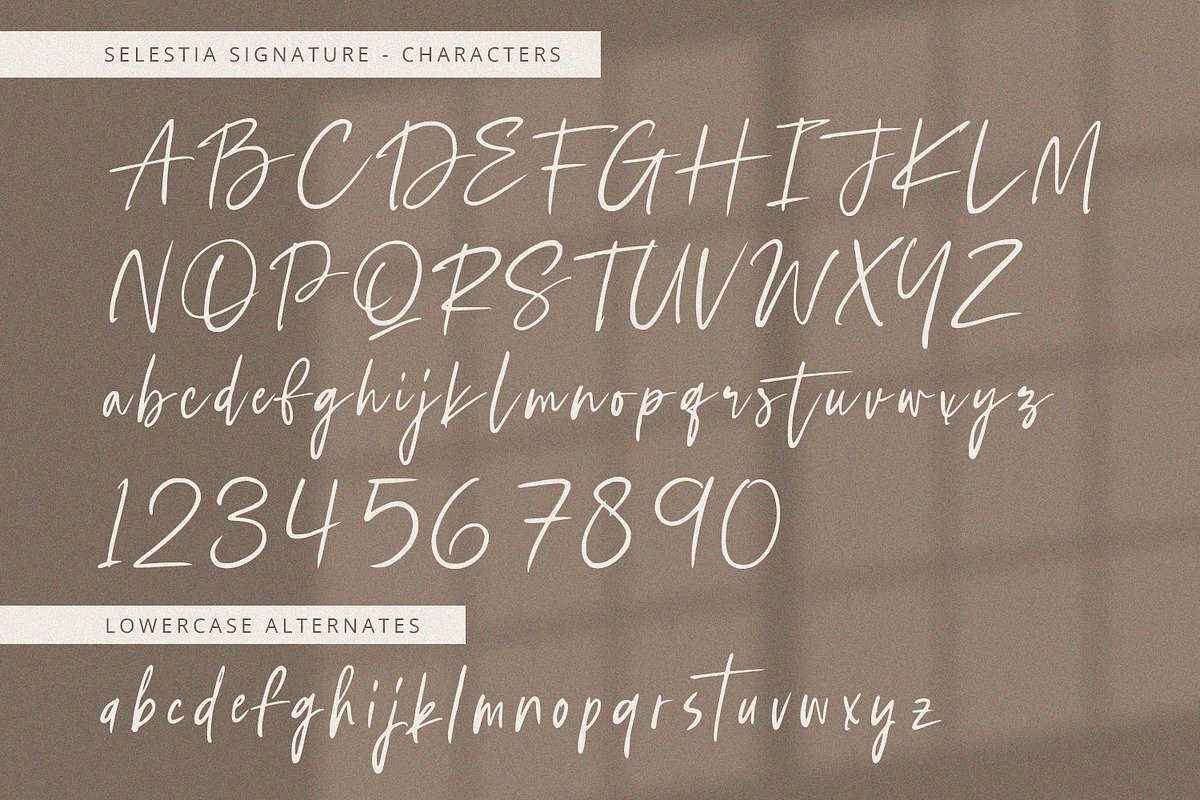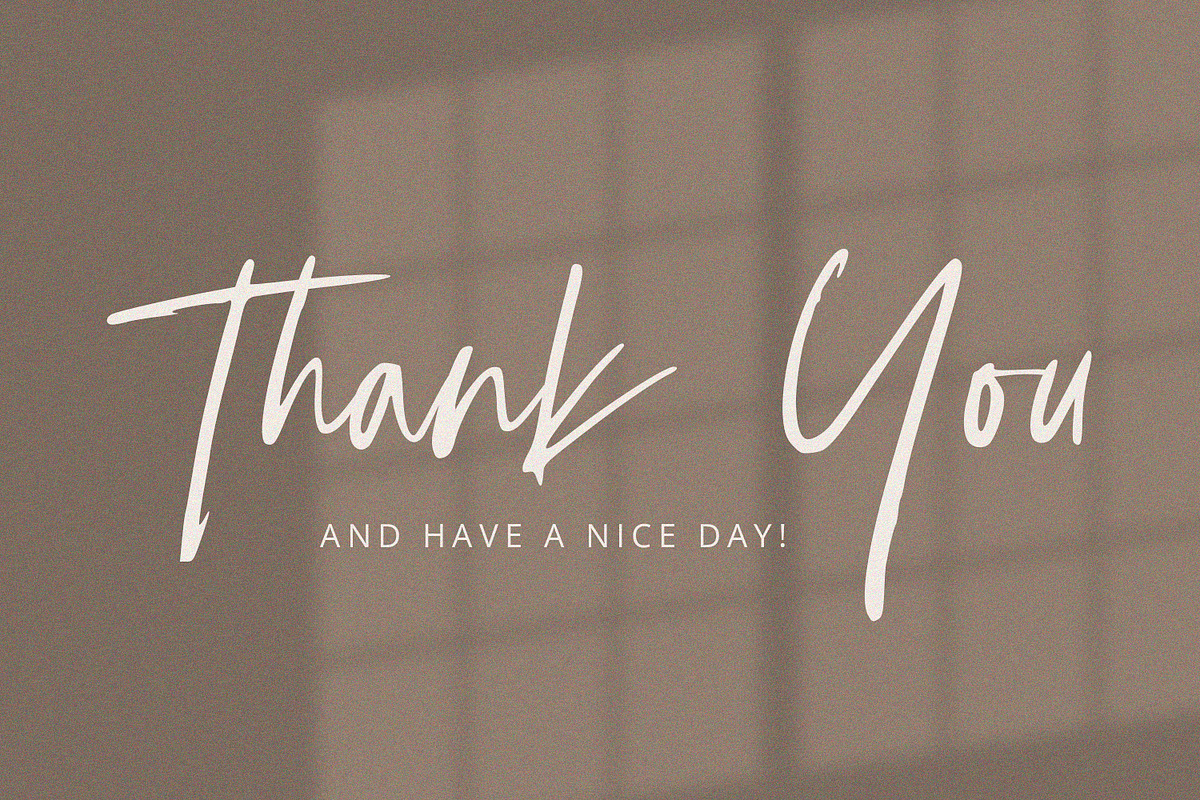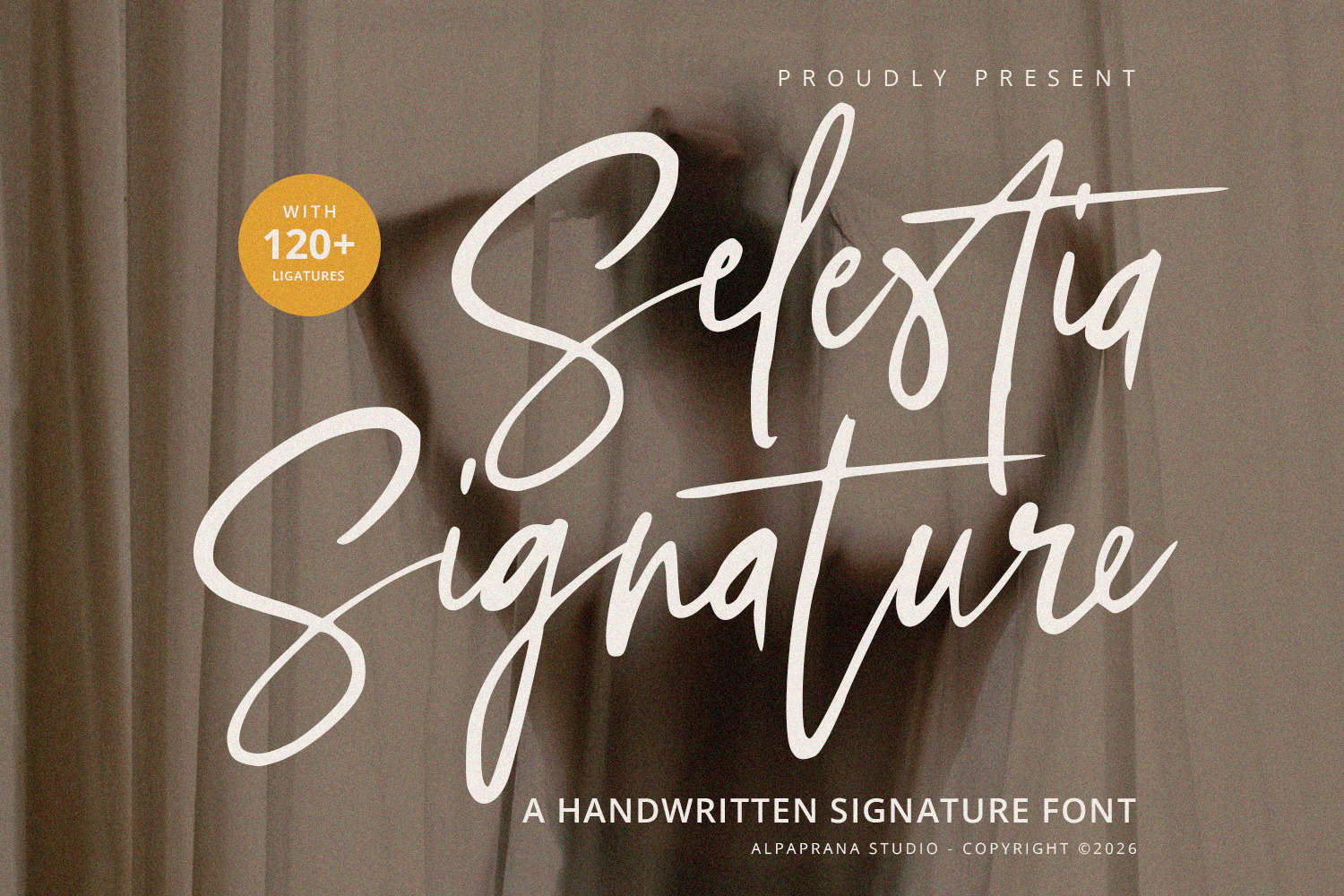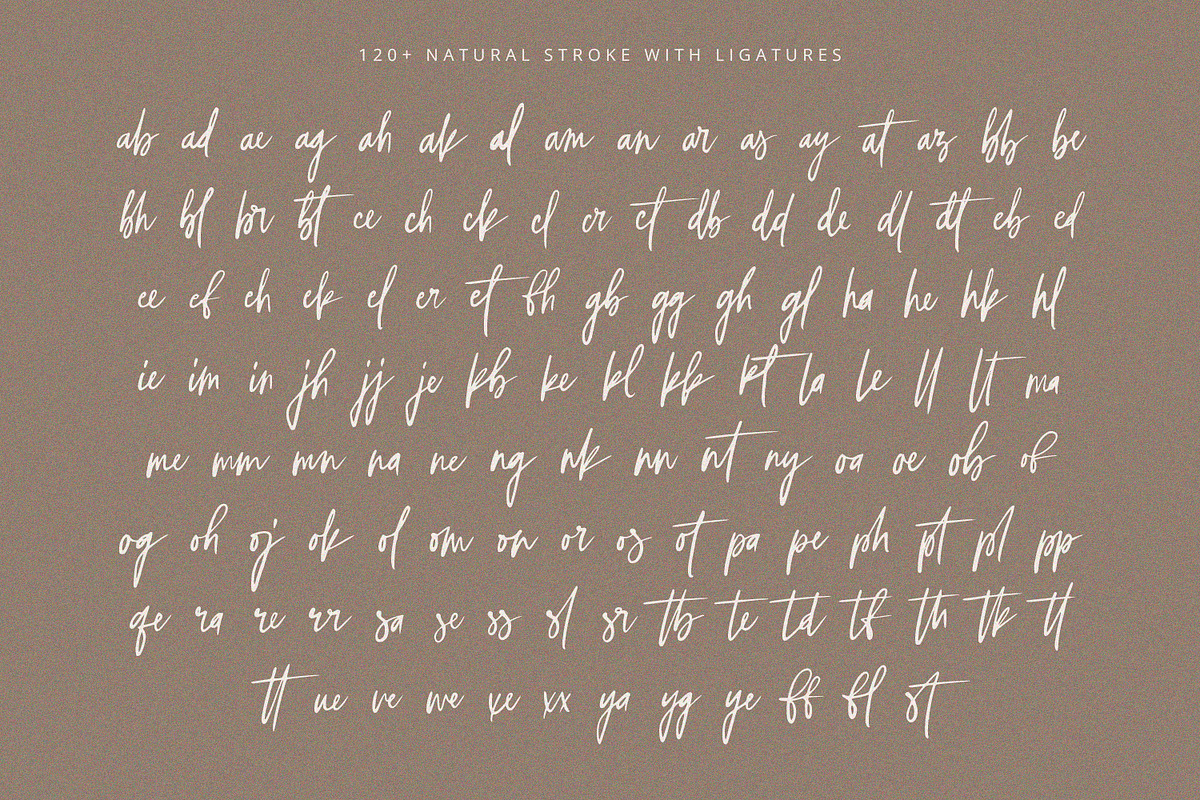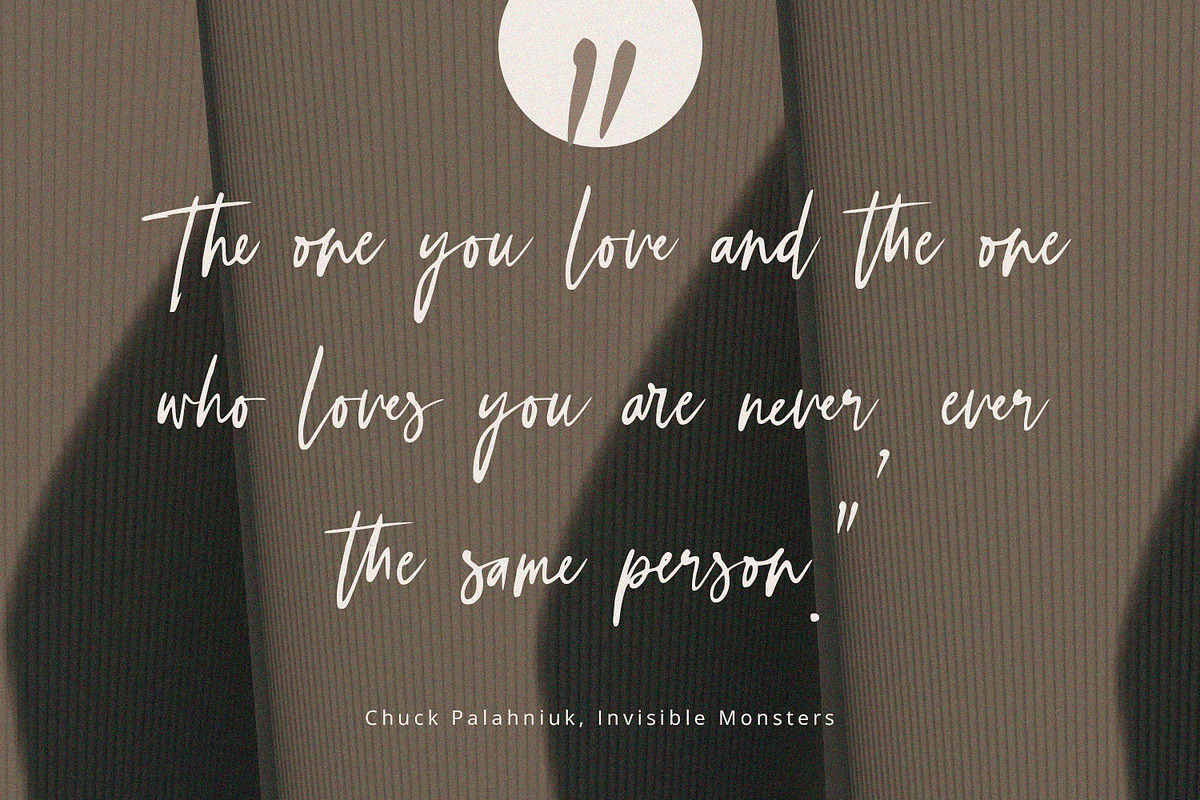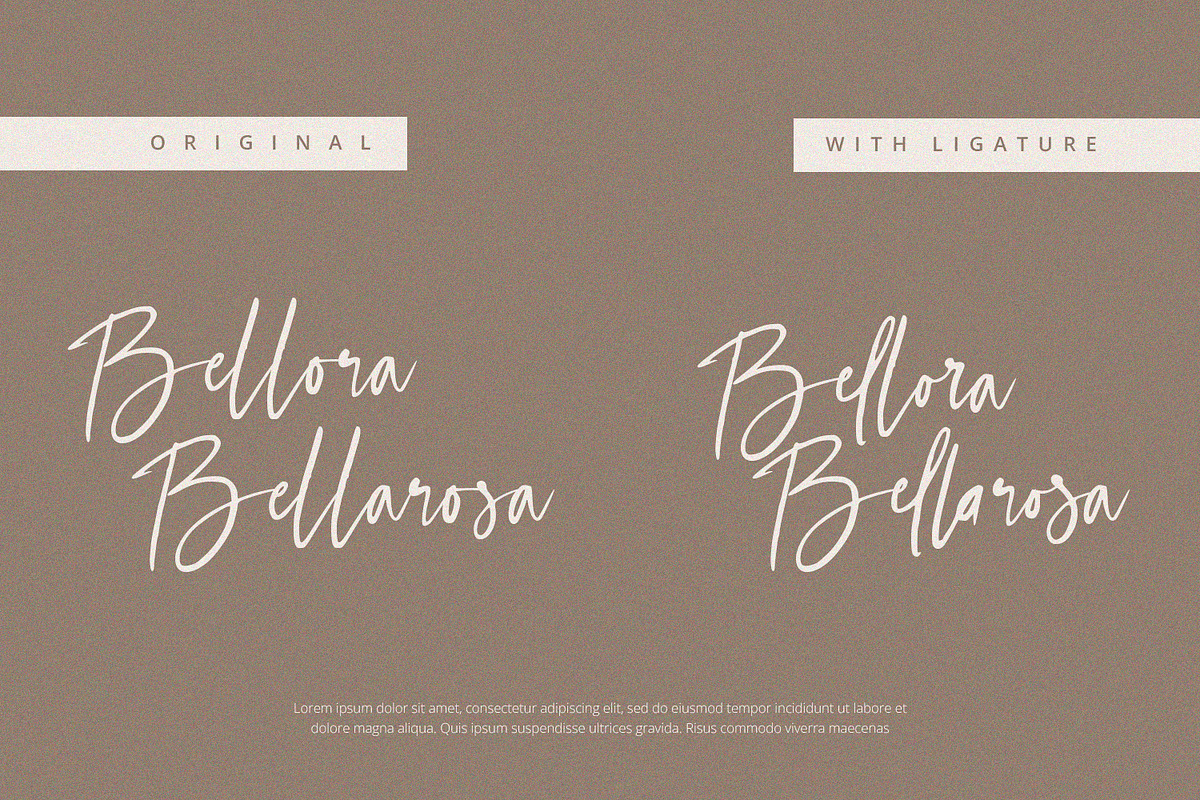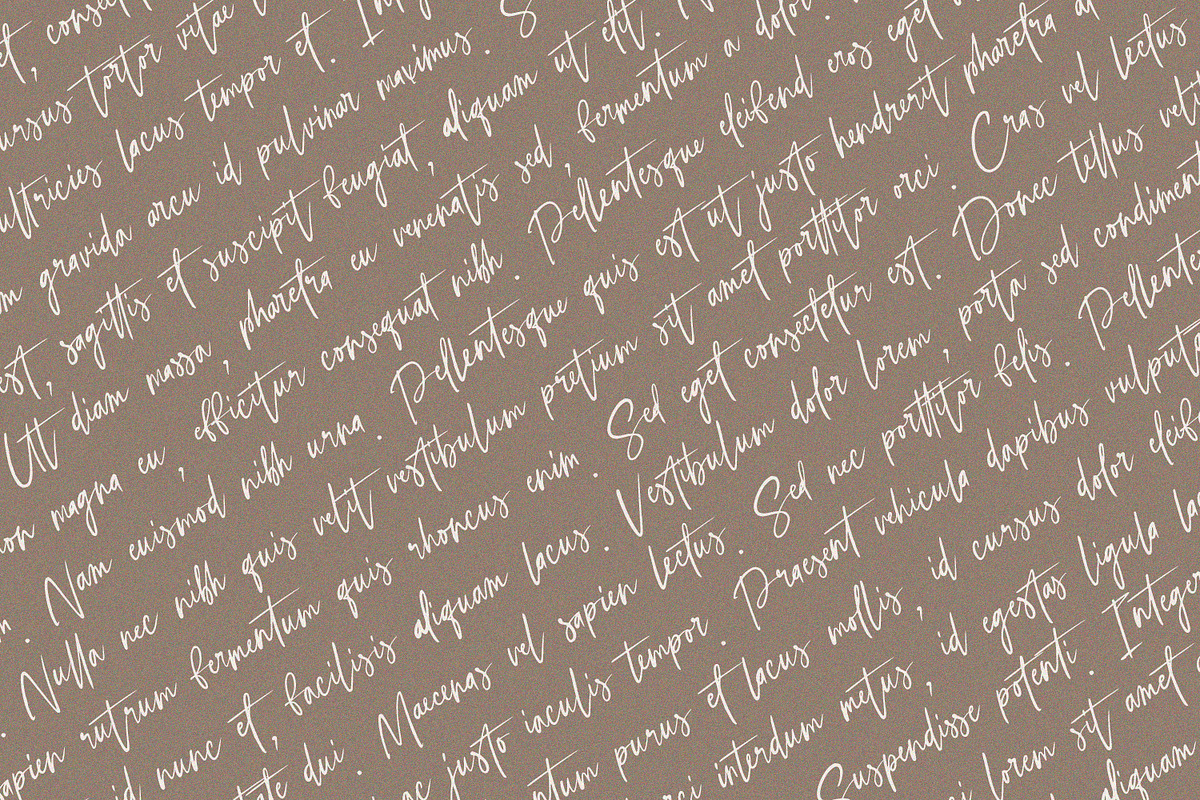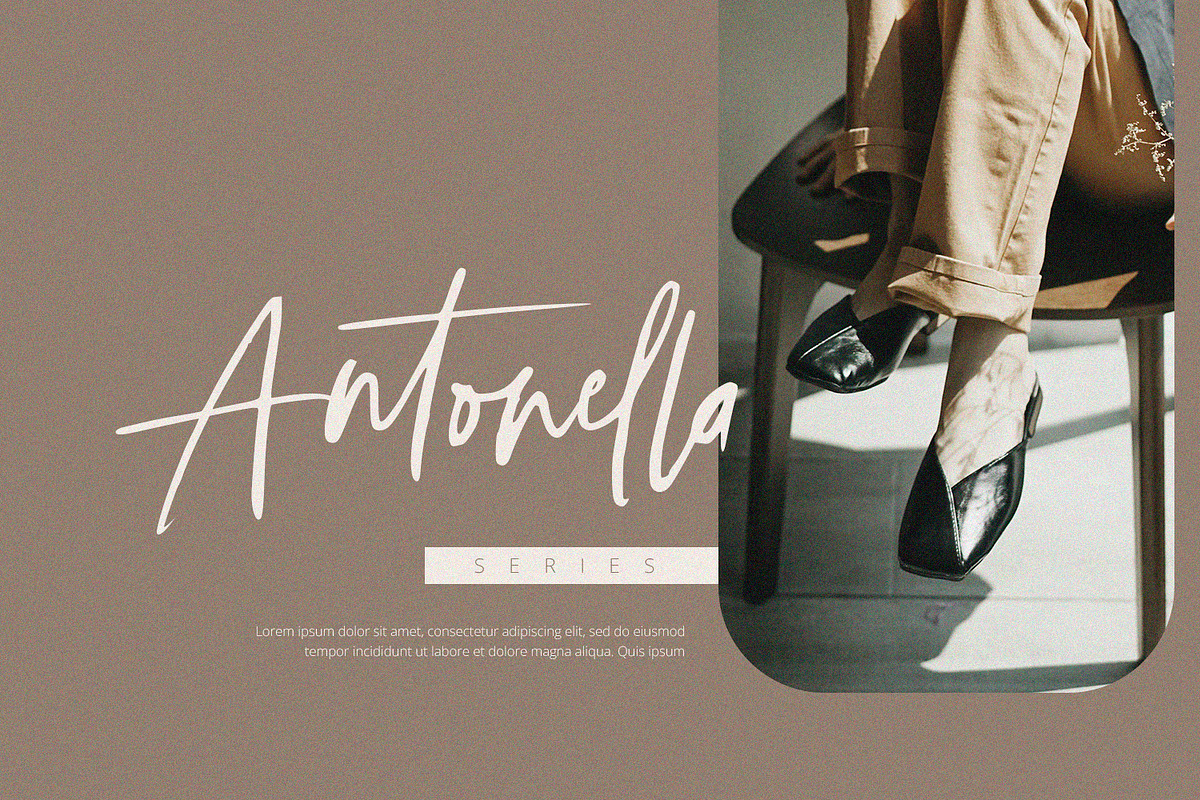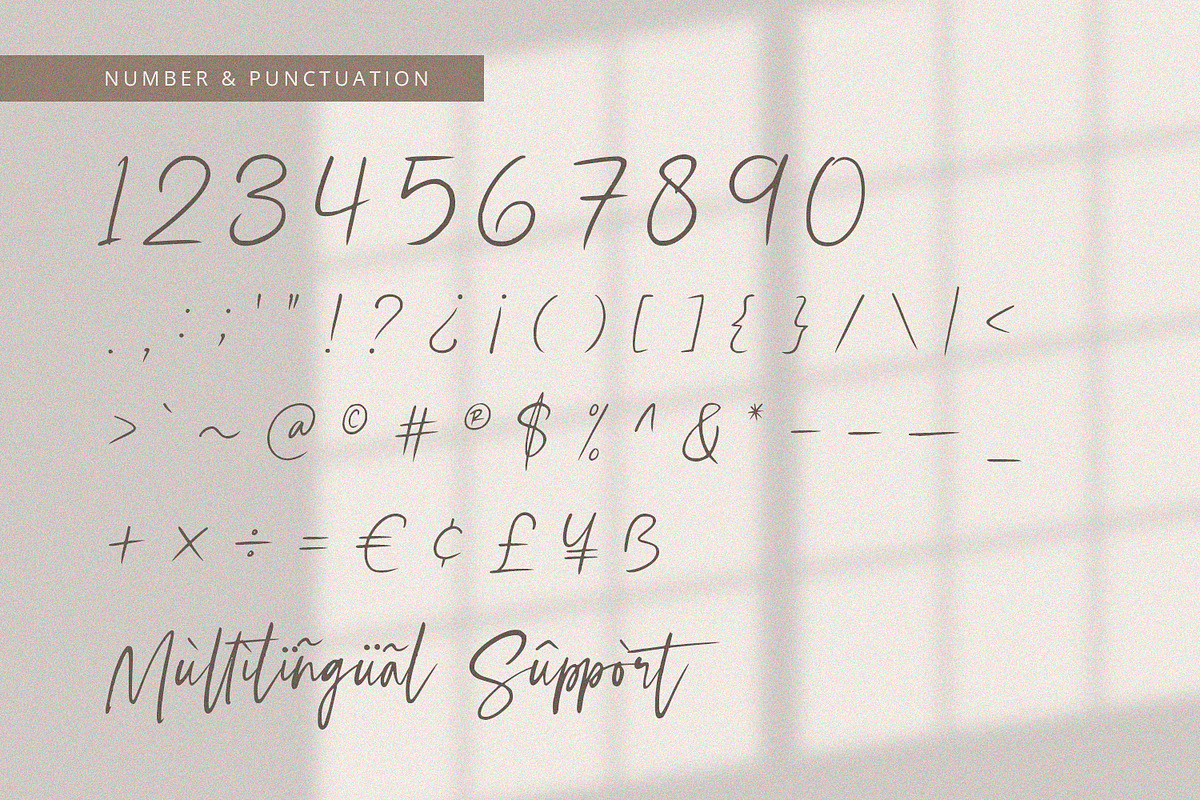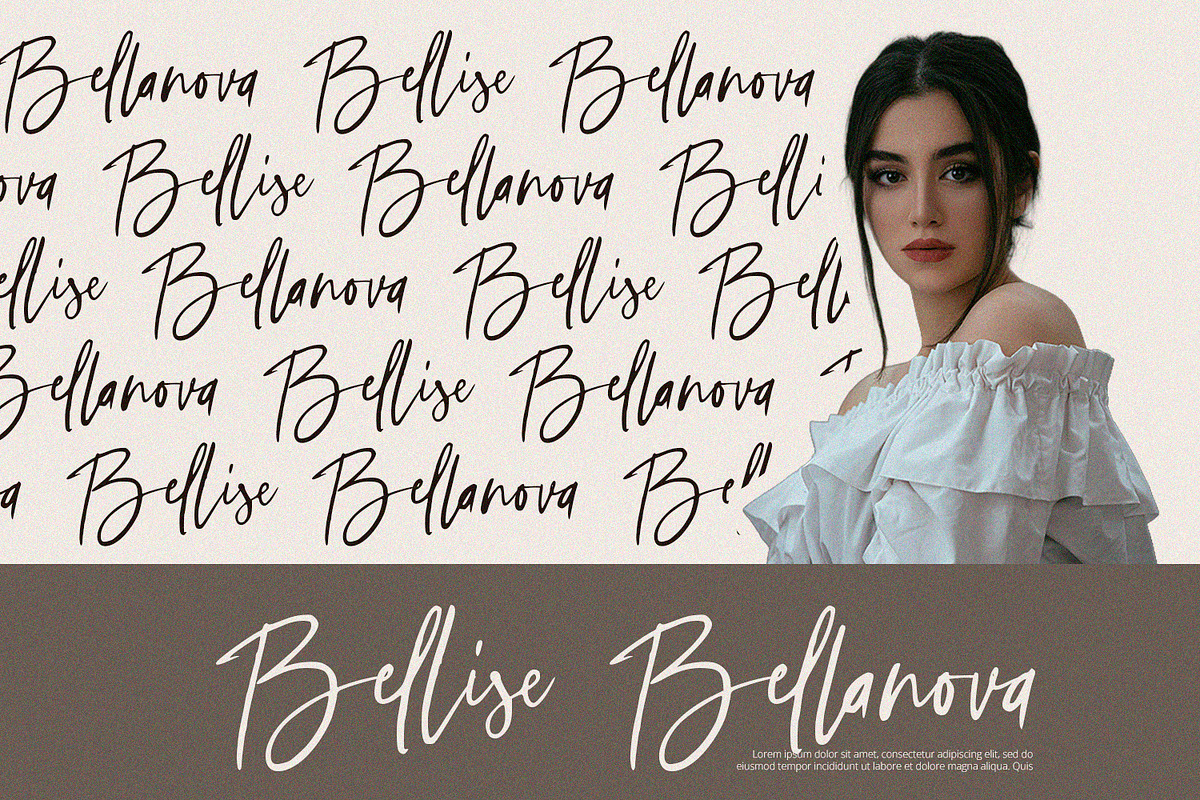
Selestia Signature -Handwritten Font
Selestia Signature is a handwritten font with unique and modern feels. It will be perfectly used for Branding, Logo Design, Lettering, Logotype, Clothing, Poster, magazine, packaging, posters, shopping bags, t-shirts, book covers, photography, special events and other design project.